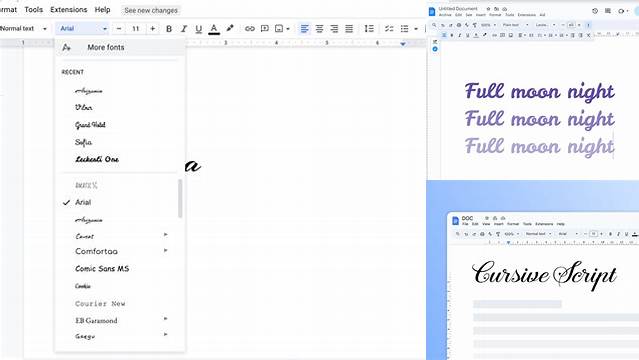
Cursive Fonts In Google Docs: A Beginner's Guide
Hey guys! Ever wanted to add a touch of elegance or a dash of personality to your Google Docs? Maybe you're crafting a heartfelt invitation, designing a unique logo, or simply want to jazz up your documents. Well, one fantastic way to do that is by using cursive fonts. Now, you might be thinking, "How do I even do that in Google Docs?" Don't sweat it! This guide will walk you through everything you need to know, from the basics to some cool advanced tricks, making you a cursive font guru in no time. We'll explore the ins and outs of finding, installing, and using these beautiful fonts to transform your documents from bland to brilliant. Get ready to dive into the world of stylish text and elevate your Google Docs game!
What are Cursive Fonts, and Why Use Them?
Okay, so what exactly are cursive fonts? Think of them as the digital equivalent of handwriting. They mimic the flowing, connected style of script, calligraphy, or handwriting. They're designed to add a personal, artistic touch, making your text stand out from the typical block letters. But why bother with them in the first place? Here's why you should consider using cursive fonts:
- Adding Personality and Style: Cursive fonts immediately inject personality into your documents. They can range from elegant and formal to playful and whimsical, allowing you to match the font to the mood and purpose of your content.
- Creating Visual Appeal: They make your documents visually appealing and more engaging. Instead of the same old Arial or Times New Roman, cursive fonts offer a refreshing change that grabs the reader's attention.
- Setting the Right Tone: The right cursive font can set the tone for your document. A flowing script might be perfect for a wedding invitation, while a more casual font could work well for a friendly letter or a creative project.
- Branding and Design: If you're working on a logo or a brand, a custom cursive font can make your brand more memorable and unique.
So, if you're looking to add a touch of flair, inject personality, or just shake things up, cursive fonts are your secret weapon. They provide an easy way to enhance the visual impact of your documents and create a more engaging experience for your readers. Remember, using the right font is all about effective communication and conveying the right message, the use of cursive fonts can significantly help in achieving your goal. Let's dive in and explore how to make it happen in Google Docs!
Differences Between Cursive, Script, and Handwriting Fonts
Before we dive deeper, it's useful to understand the subtle differences between terms that often get used interchangeably: cursive, script, and handwriting fonts. While they all fall under the umbrella of mimicking handwriting, there are slight distinctions.
- Cursive Fonts: Generally imitate joined-up handwriting, with letters flowing and connecting, offering a more elegant and formal feel. These fonts often have a classic, traditional vibe, making them suitable for invitations, certificates, and formal documents.
- Script Fonts: A broader category that includes cursive fonts but also covers fonts that resemble calligraphy or more stylized handwriting. They might be more ornate, with flourishes and intricate details, or they can be casual and playful. Script fonts offer a lot of versatility.
- Handwriting Fonts: Intend to look like actual handwriting, often appearing more casual and less polished than cursive fonts. They tend to have a more personal, handwritten feel. This kind of font is great for adding a personal touch to notes or creative projects. The main difference? Handwriting fonts often have a more informal and natural feel. They are designed to mimic the style of actual handwriting, complete with imperfections.
Understanding these nuances will help you choose the perfect font for your document. For example, if you want a formal touch, a classic cursive font is the way to go. If you're aiming for a more artistic look, a script font might be your best bet. And if you want a personal, handwritten feel, a handwriting font will work wonders!
How to Use Cursive Fonts in Google Docs
Alright, let's get to the good stuff! How do you actually use cursive fonts in Google Docs? The process is pretty straightforward, but let's break it down step by step to make sure you're all set. Using cursive fonts in Google Docs is super easy, and the platform provides a user-friendly way to access and use these fonts to add a bit of personality to your documents. Here is the step-by-step guide:
1. Accessing the Font Menu
First things first, open your Google Doc. Next, locate the font menu. This menu is usually found in the toolbar at the top of the document, and it's typically the first option on the left side, right next to the font size selection. It will likely display the current font of your document (e.g., Arial, Times New Roman). Click on the font name to open the font selection drop-down menu.
2. Exploring the Available Fonts
Once the font menu is open, you'll see a list of fonts that are already available in Google Docs. Scroll through this list to see if any cursive fonts catch your eye. Common cursive fonts like 'Dancing Script' or 'Pacifico' might be available depending on your Google Docs settings. If you spot a font you like, simply click on it to apply it to your selected text. It's that easy!